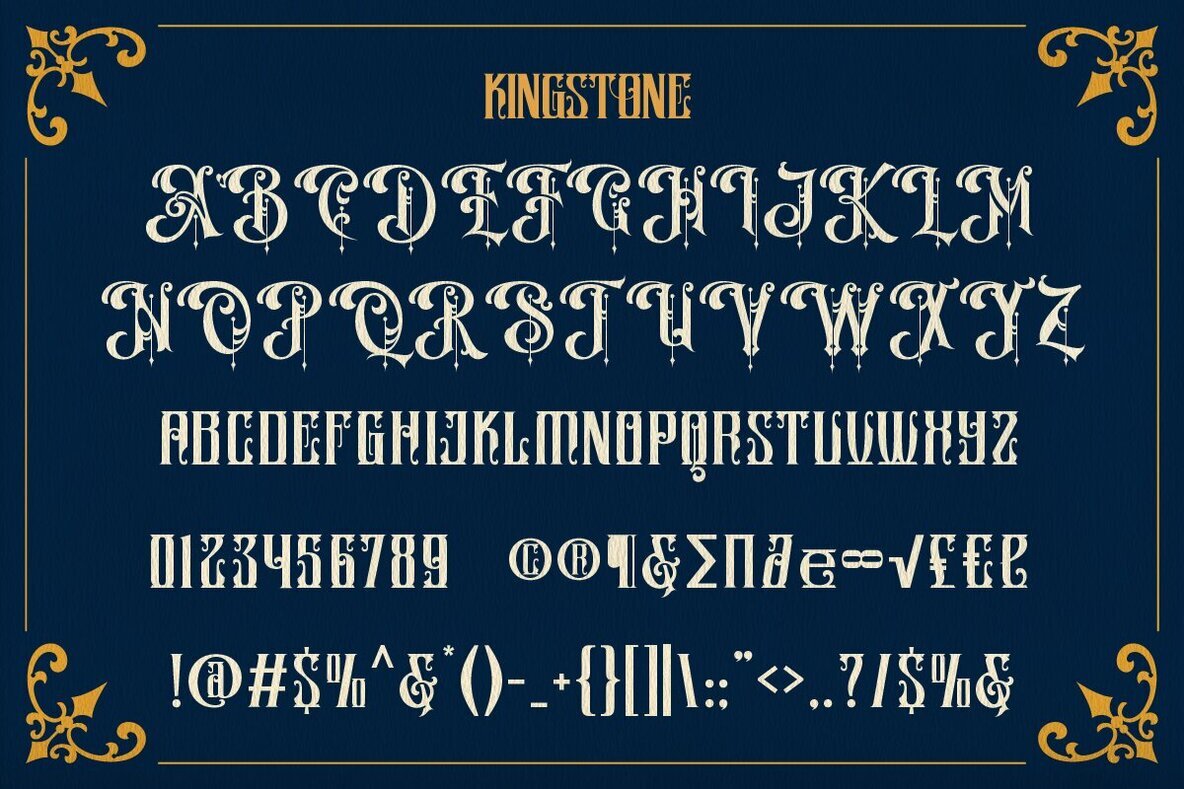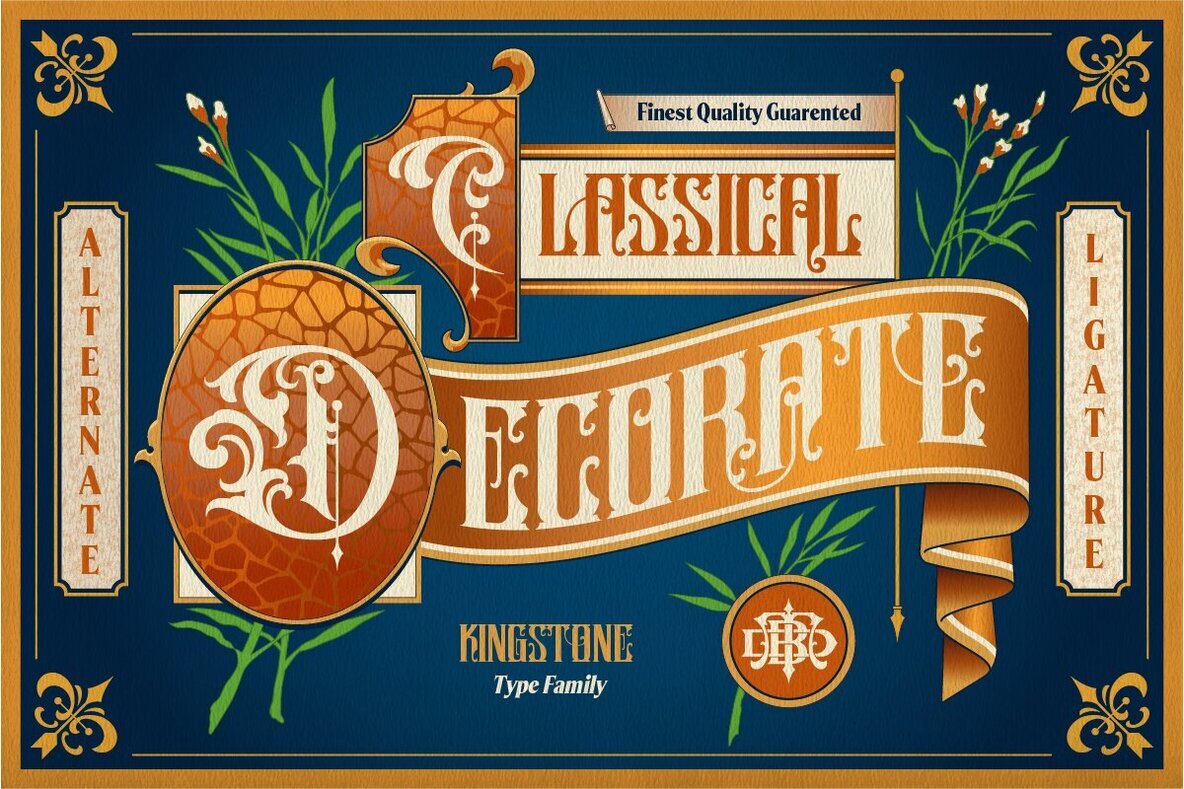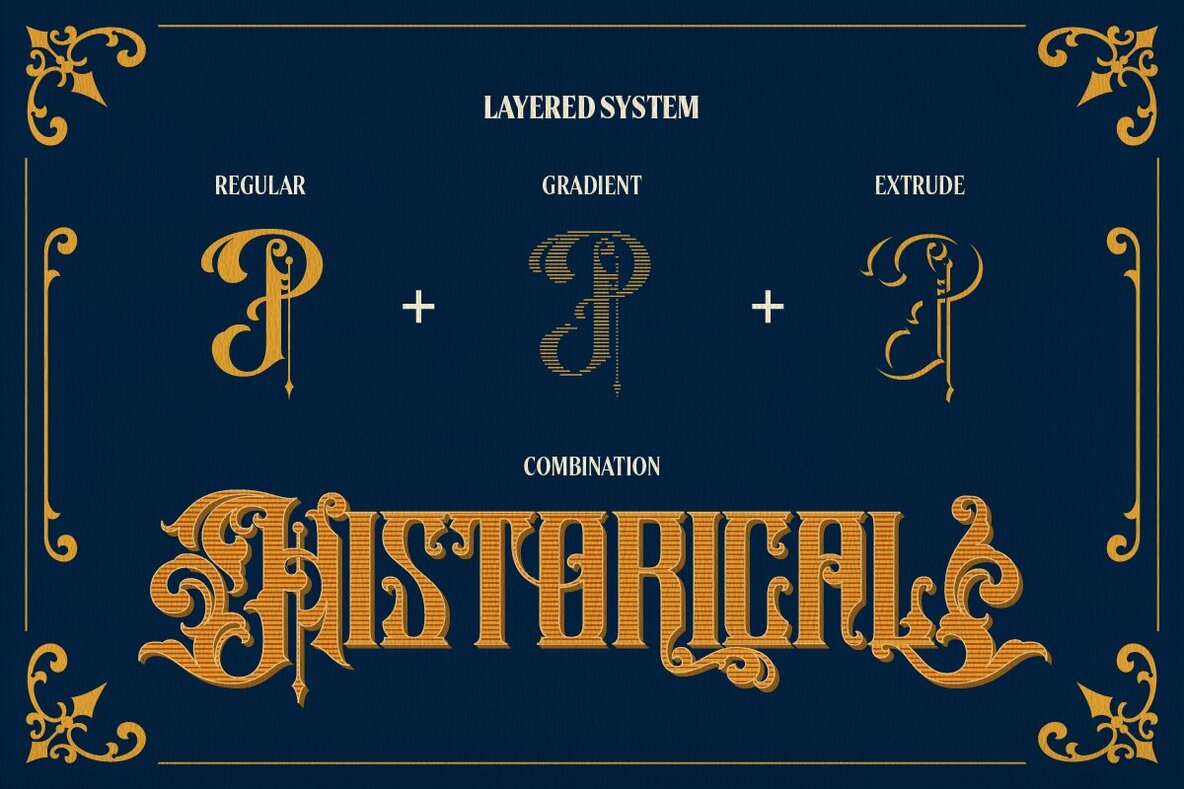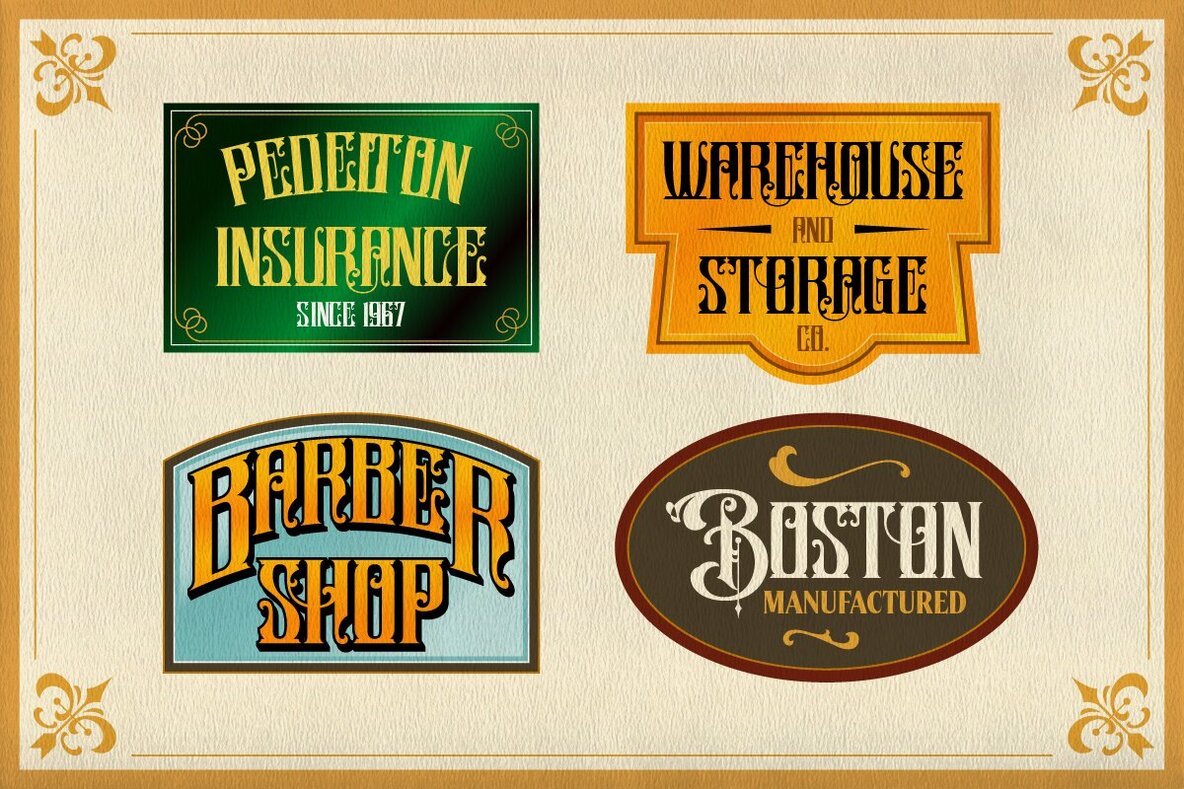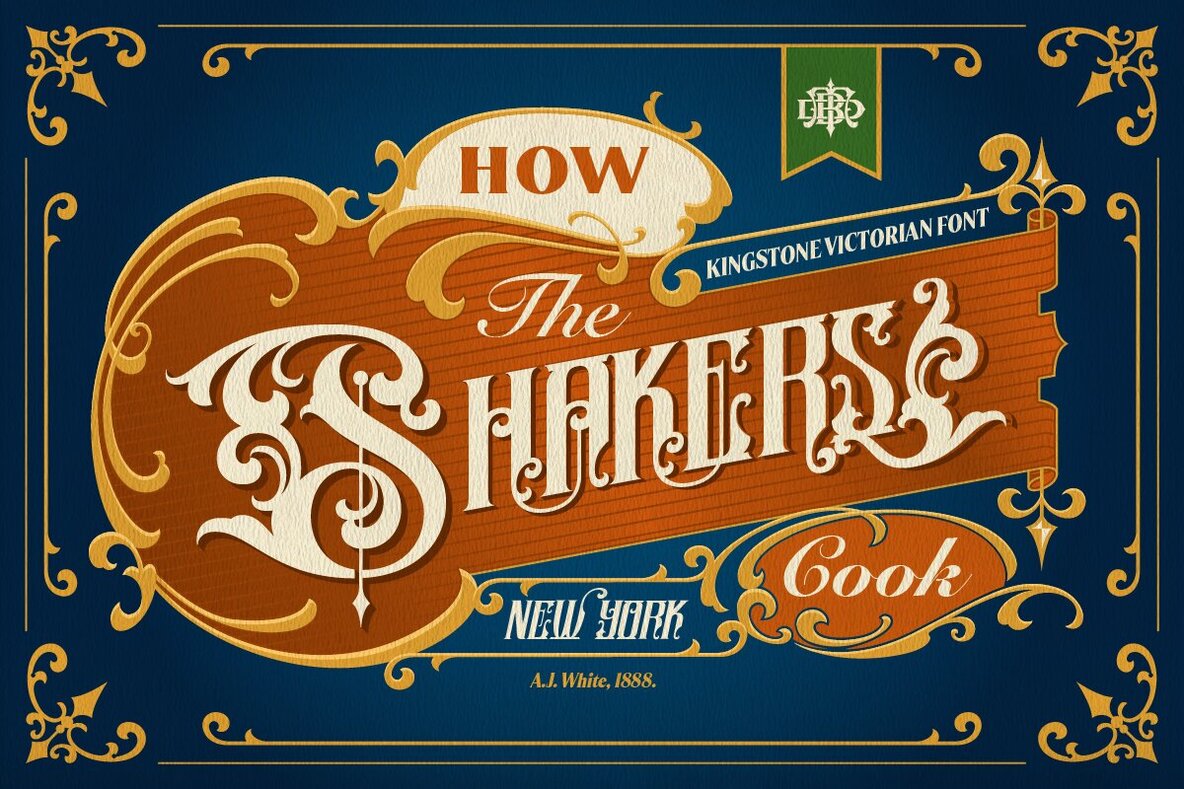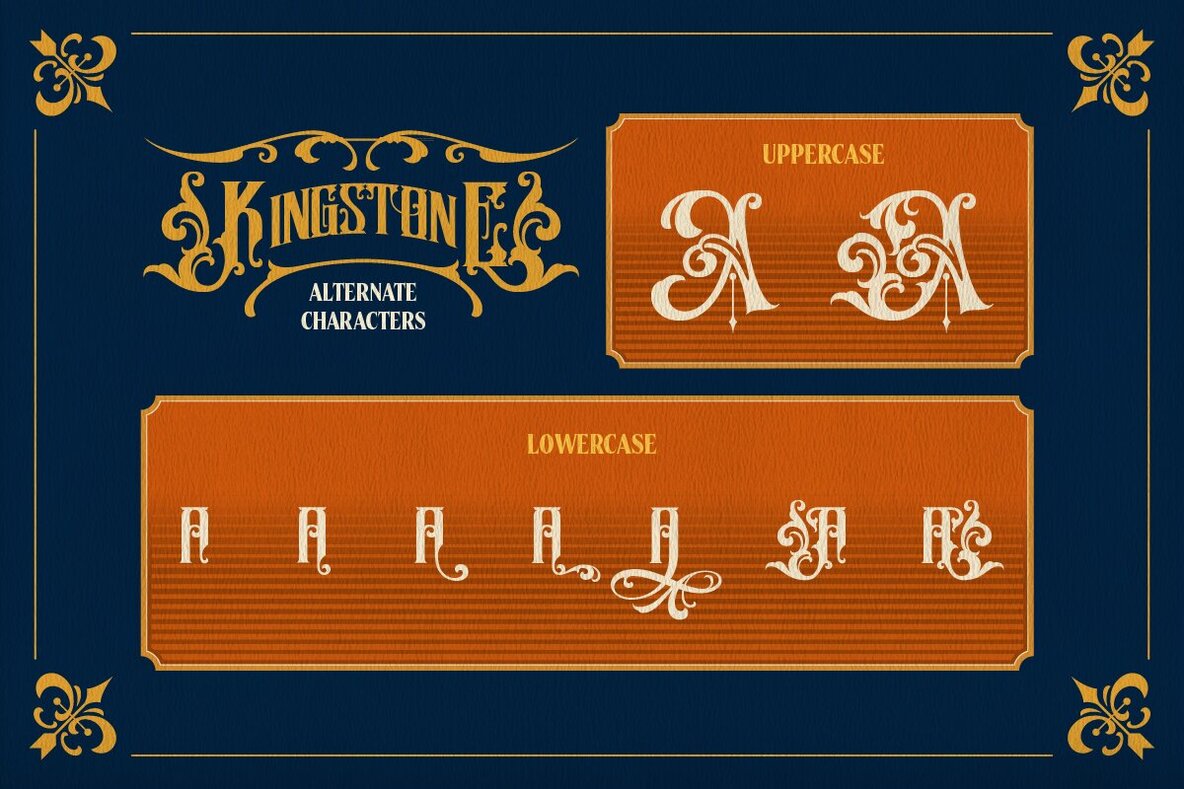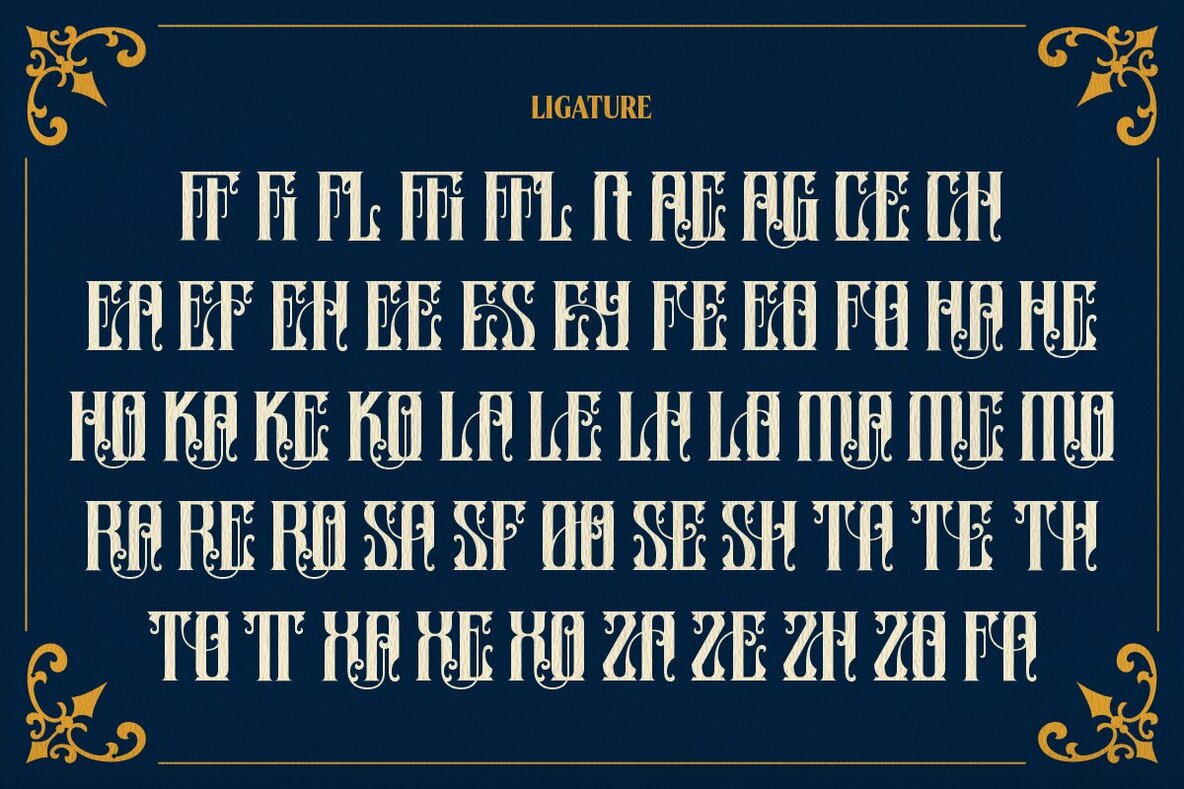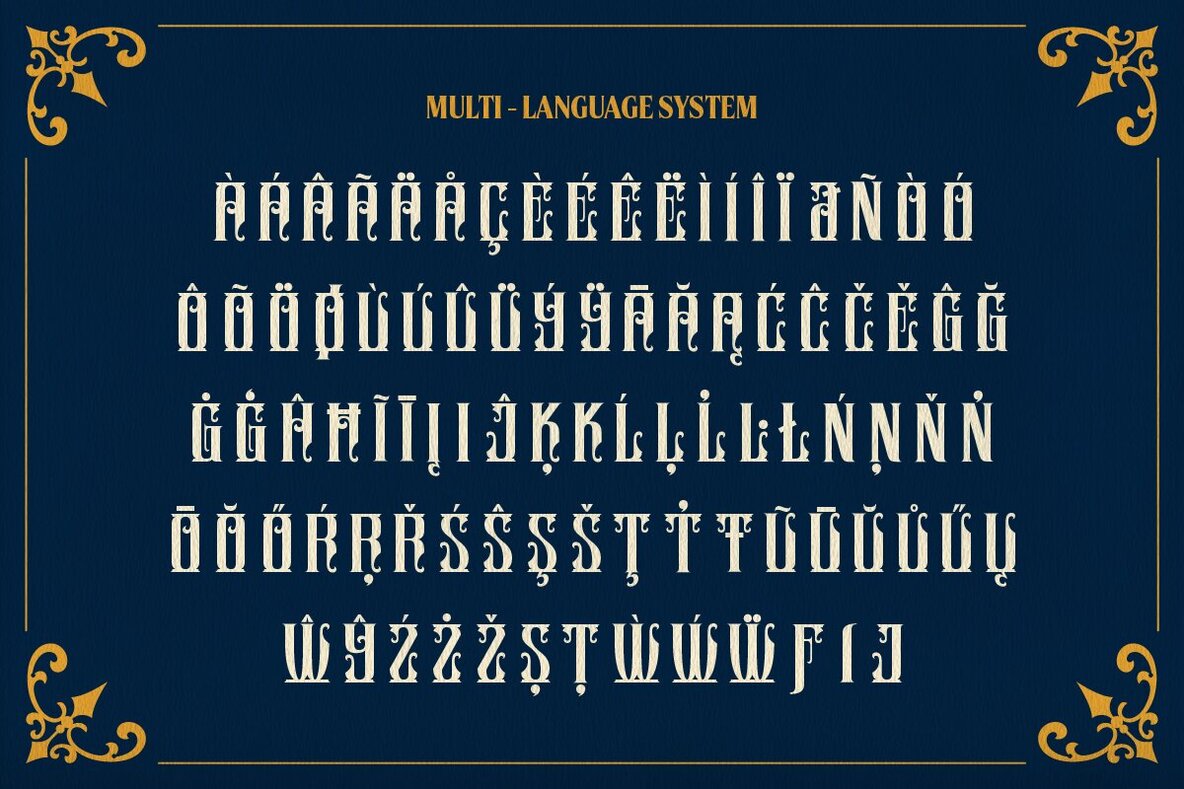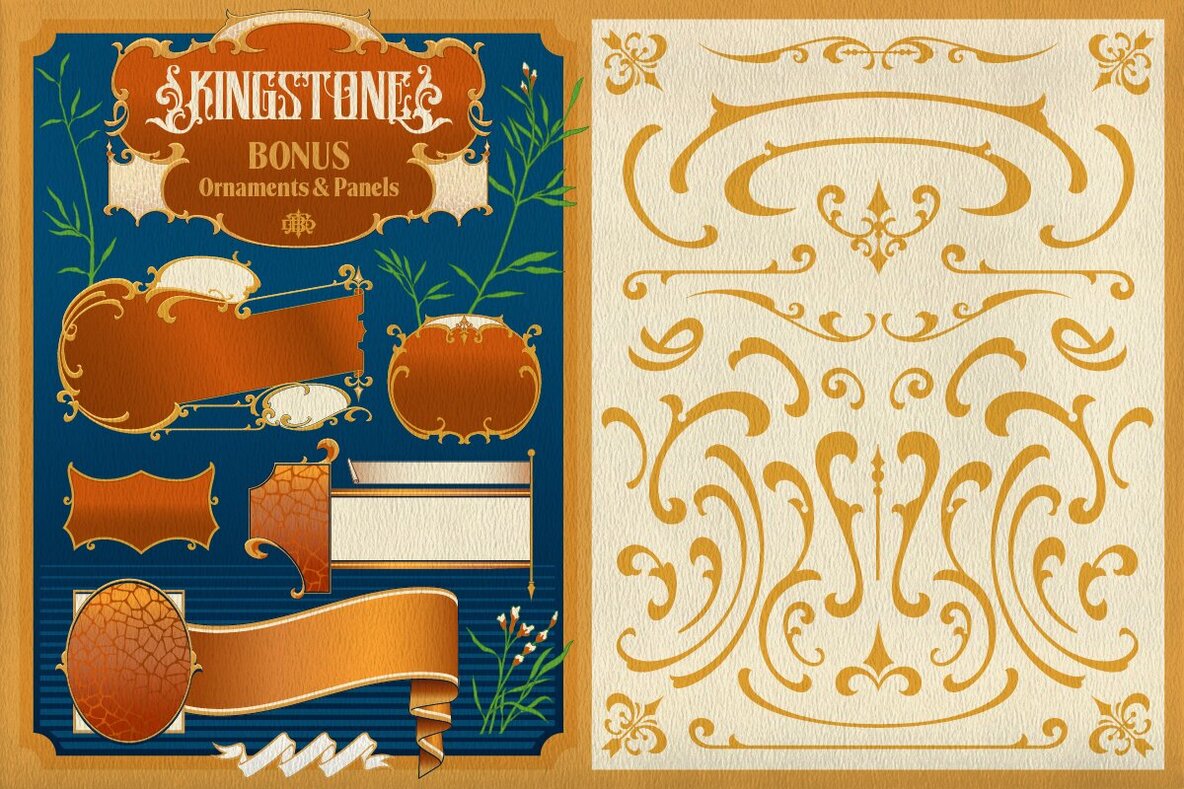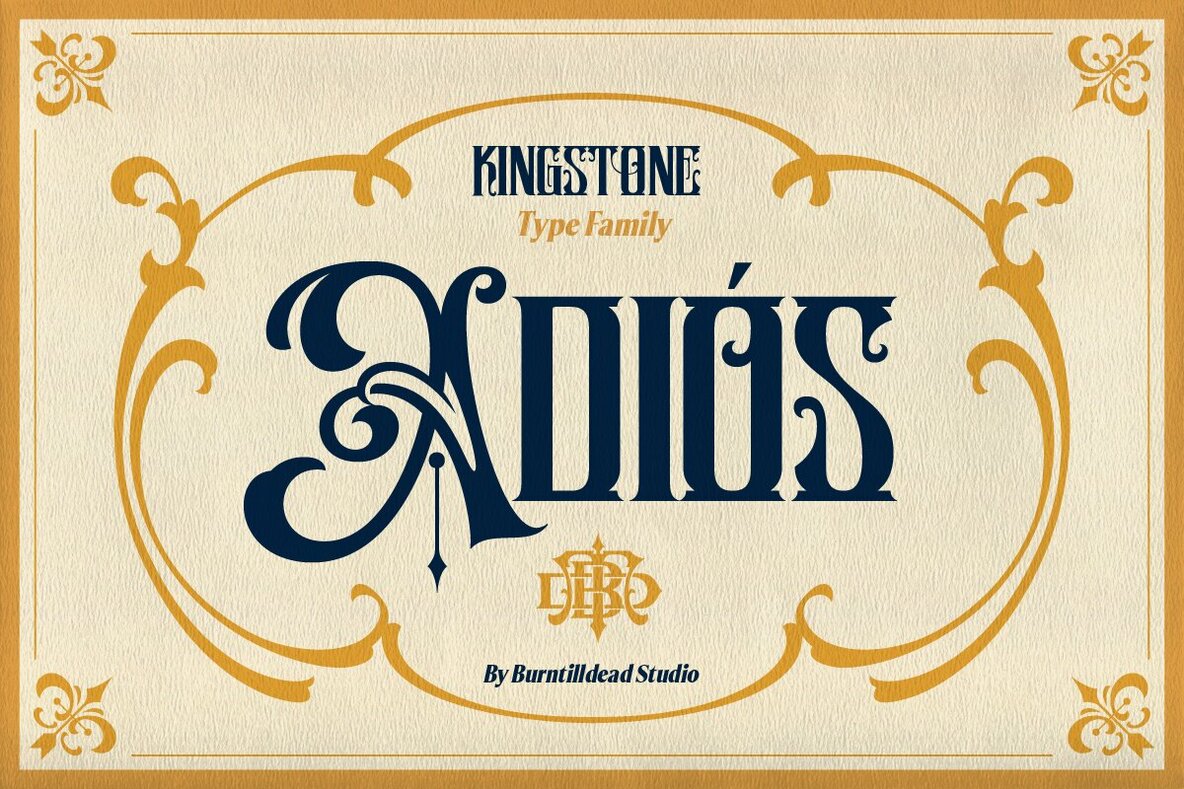
Kingstone Font
Kingstone Regular
Kingstone Extrude
Kingstone Gradient
This ornate blackletter font brings a touch of medieval elegance to your designs, with its intricate and angular letterforms. Ideal for projects needing a historical or gothic influence, such as vintage book covers, themed event invitations, or elaborate branding. Perfect for those wanting to add a dramatic and traditional touch.